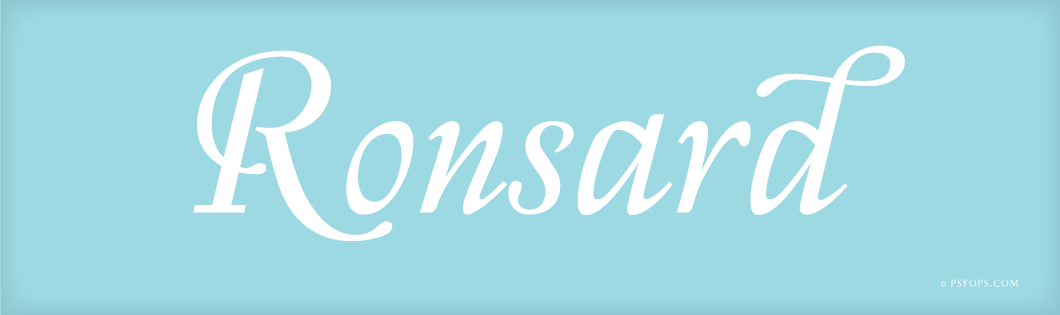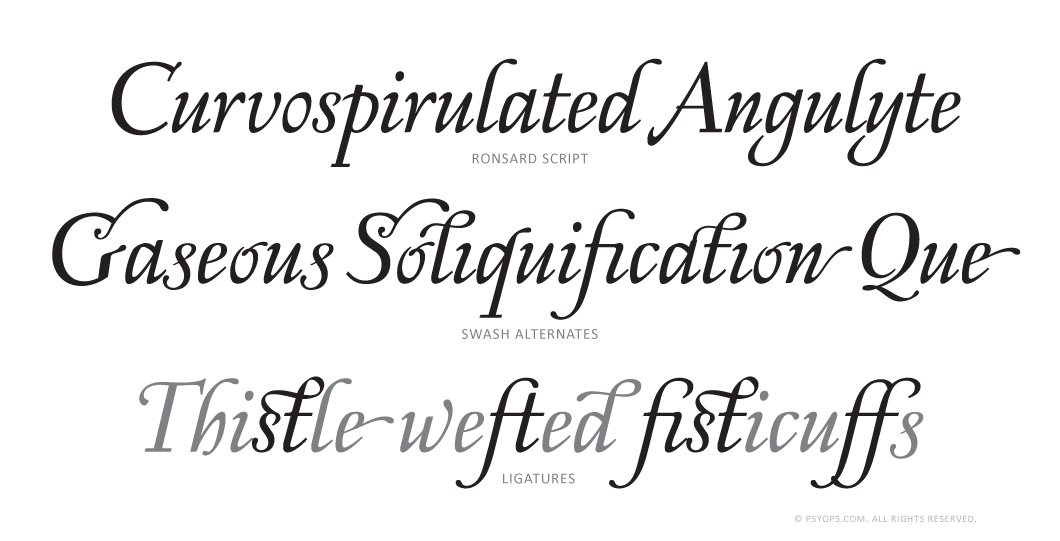
Ronsard
The Ronsard typeface is a fancy, Renaissance-era cancellaresca with with both a normal italic style and a swash alphabet. The Ronsard fonts include: Western and Eastern European characters, ligatures, and more. Stylistic Alternates and Swash Alternates are also available.